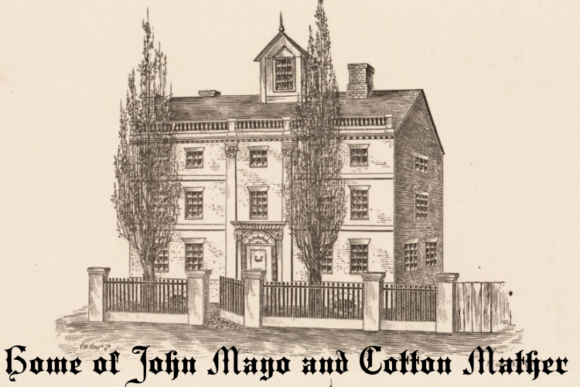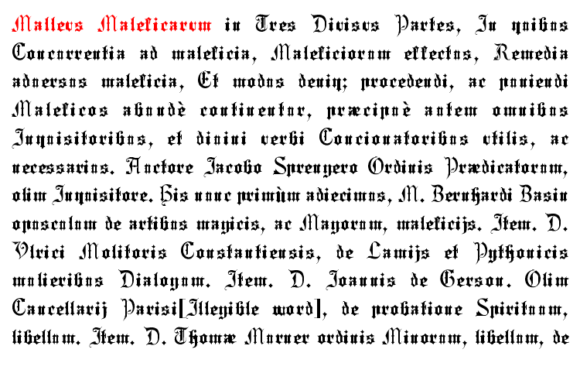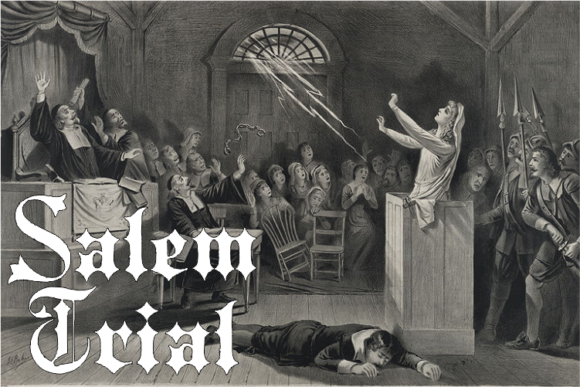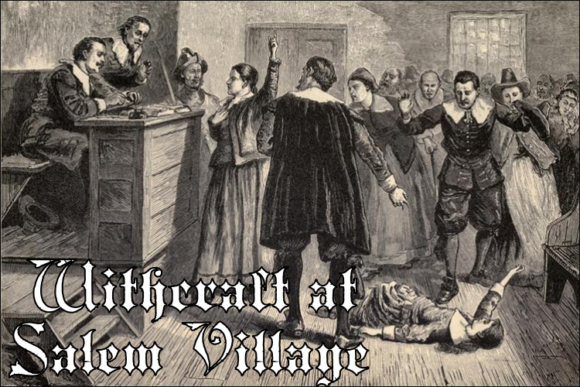
Introduction to Cotton Mather Font
As you sit at your desk, staring at a blank page, and trying to come up with the perfect design for your creative project, you might find yourself yearning for the perfect font to bring your vision to life. The right font can make all the difference, elevating your design from ordinary to extraordinary.
That’s where the Cotton Mather Font comes in – a high-quality, authentic blackletter font that’s sure to leave a lasting impression. With its intricate details and imposing presence, this font is a valuable asset for any designer looking to add a touch of sophistication to their work.
Key Features of Cotton Mather Font
- High-quality design for creative projects, suitable for various uses including logos, titles, and body text.
- Features a unique, elegant style inspired by traditional typography, with a transparent background for seamless integration.
- Includes a range of font sizes and resolutions, making it easy to use in various contexts, from small text to large headings.
- Designed to be highly legible, even at small font sizes, making it an excellent choice for creative projects where readability is crucial.
- Can be easily customized and edited using font editing software, allowing users to tailor the font to their specific needs.
Honest Review: Cotton Mather Font
Cotton Mather Font is a free download that I stumbled upon while searching for a design resource for a creative project. I must say, I was impressed by its high quality and versatility. The font is perfect for various design applications, from digital graphics to print materials.
Here are some things that work well with this font: ✨
- High-quality design: The font is well-crafted and visually appealing.
- Transparency: The font comes with a transparent background, making it easy to work with.
However, there are some limitations to consider: ⚠️
- Limited customization: While the font is versatile, it’s not easily customizable, which might be a drawback for some designers.
- Not suitable for all design projects: Cotton Mather Font might not be the best choice for very formal or traditional design projects.
Overall, I’m impressed with the Cotton Mather Font. It’s a great addition to any designer’s toolkit, and its free download makes it a no-brainer for designers on a budget. If you’re looking for a high-quality, versatile font for your creative project, Cotton Mather Font is definitely worth checking out.
Cotton Mather Font
The Cotton Mather Font is a high-quality design resource ideal for creative projects. This font can be downloaded for free, offering a transparent background that allows for versatility in its application.
To maximize the effectiveness of the Cotton Mather Font, experiment with different font sizes, colors, and combinations with other design elements. You can also adjust the transparency level to blend the font with the background image or color.
The Cotton Mather Font is suitable for various design projects, including brochures, posters, business cards, and social media graphics. Its high-quality design and transparent background make it an ideal choice for creative professionals and individuals looking for a free design resource.